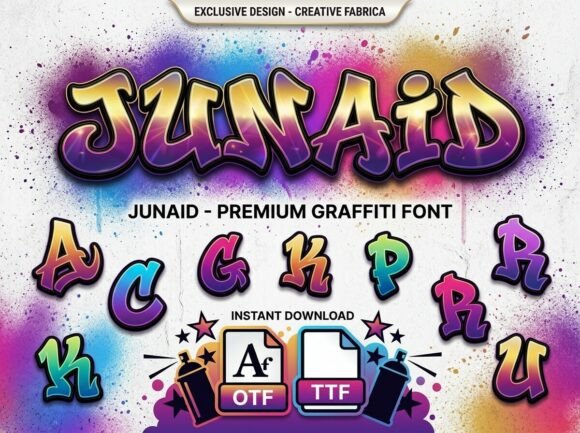
Introduction to Junaid Font
Bring the energy of the city to your creative projects with Junaid, a high-impact graffiti-style display font.
Featuring thick, pillowy outlines and a stunning โspray-paintโ rainbow gradient, this typeface captures the raw, expressive spirit of street art Junaid is the definitive choice for streetwear branding, music festival posters, skateboard deck graphics, and urban youth apparel.